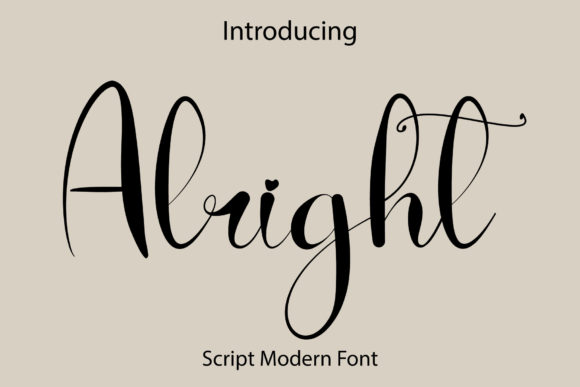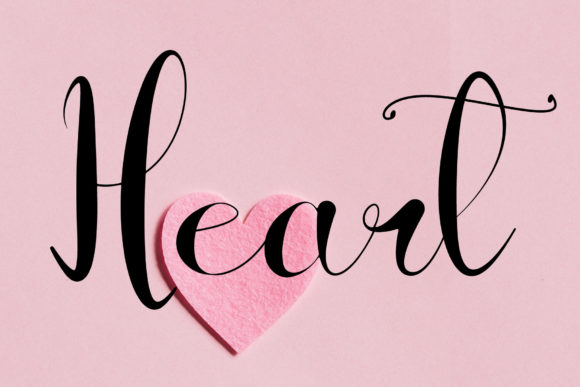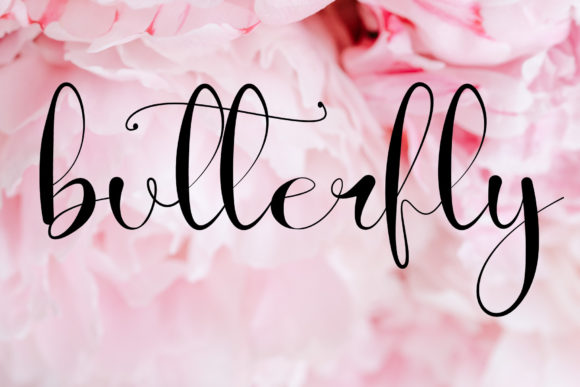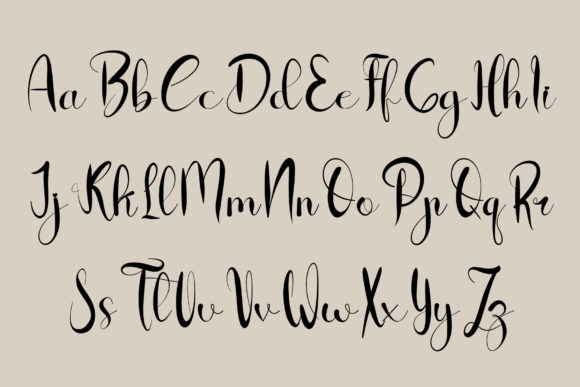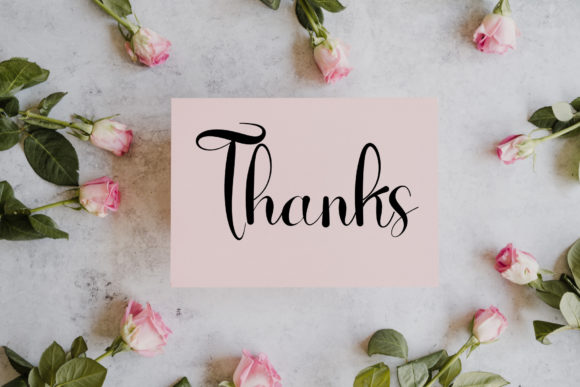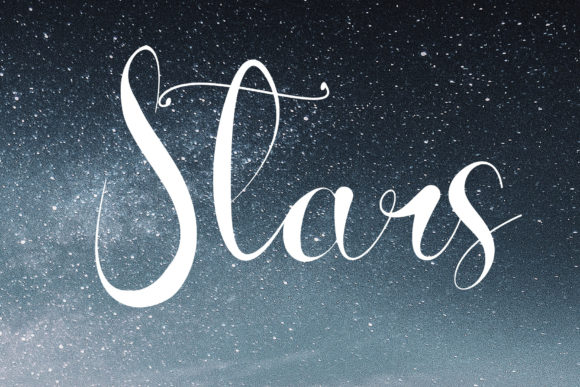
Alright Font
About Alright Font
“Alright” is a stylish and incredibly elegant script font that adds a touch of sophistication to various design projects. With its stunning appearance, this font is particularly well-suited for wedding invitations, thank you cards, quotes, greeting cards, logos, business cards, and any other designs that benefit from a refined and handwritten touch.
The stylish and elegant script of “Alright” brings a sense of grace and charm to your projects. Its carefully crafted letters contribute to an overall aesthetic that is both visually appealing and timeless. Whether you’re working on formal invitations or creating branded materials, this font enhances the elegance of your designs.
The versatility of “Alright” allows it to adapt seamlessly to different contexts, making it a valuable choice for a range of design applications. Its handwritten touch adds a personal and authentic feel, creating a connection with the audience and elevating the overall impression of your designs.
In summary, “Alright” is more than just a font; it’s a stylish and elegant script that enhances the beauty of your projects. Embrace its sophisticated appearance, and let “Alright” add a touch of refinement to your wedding invitations, thank you cards, quotes, and various other design endeavors.